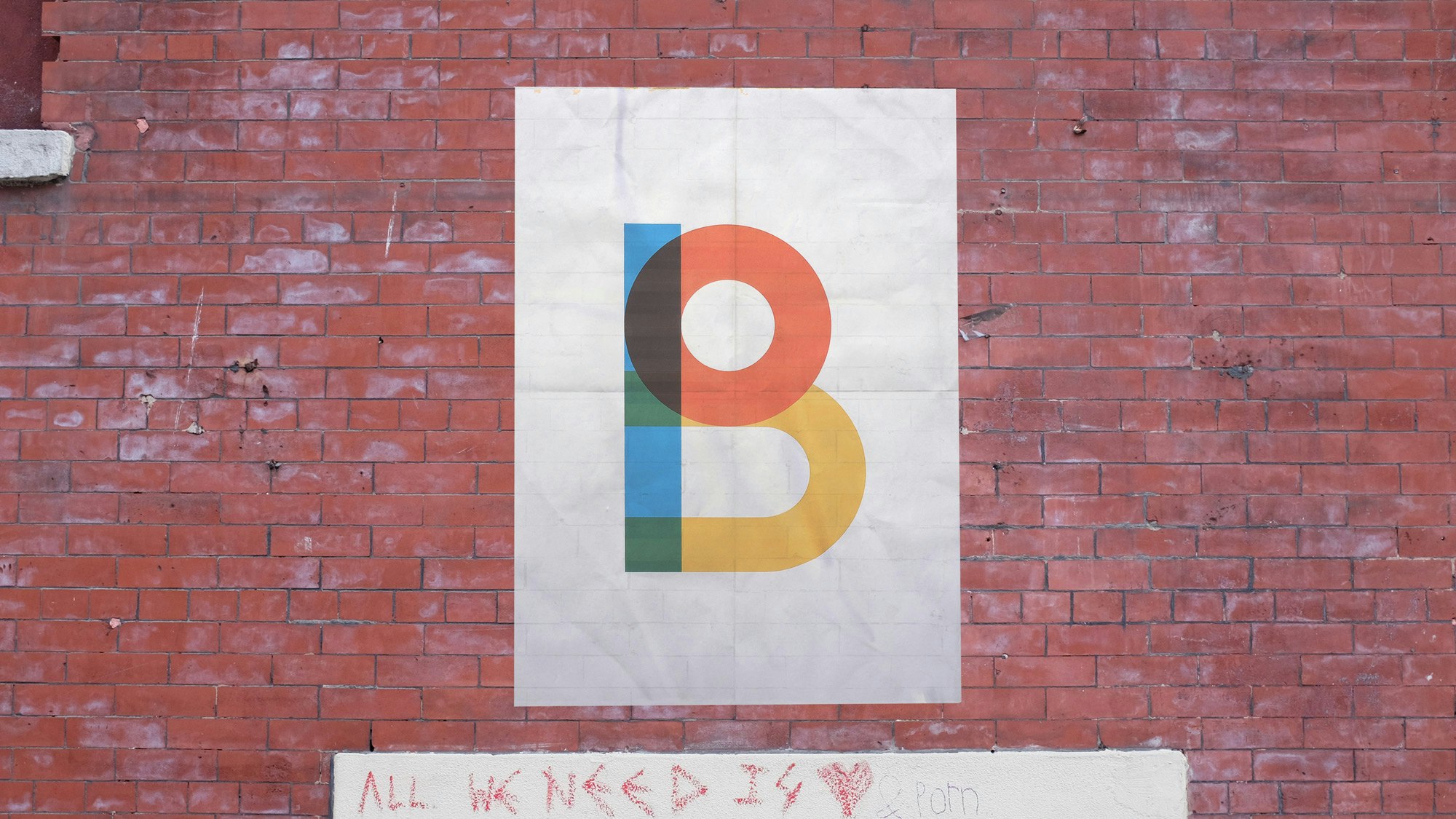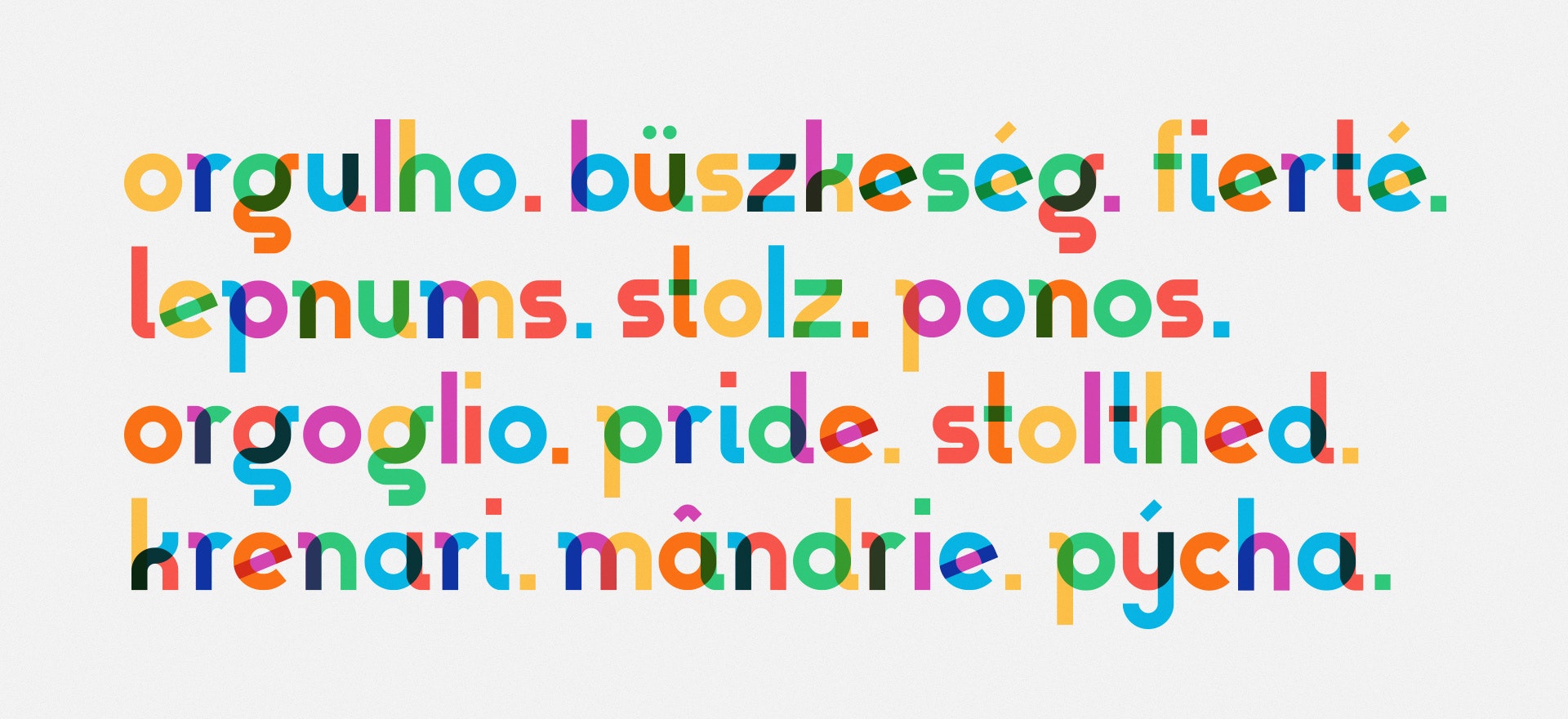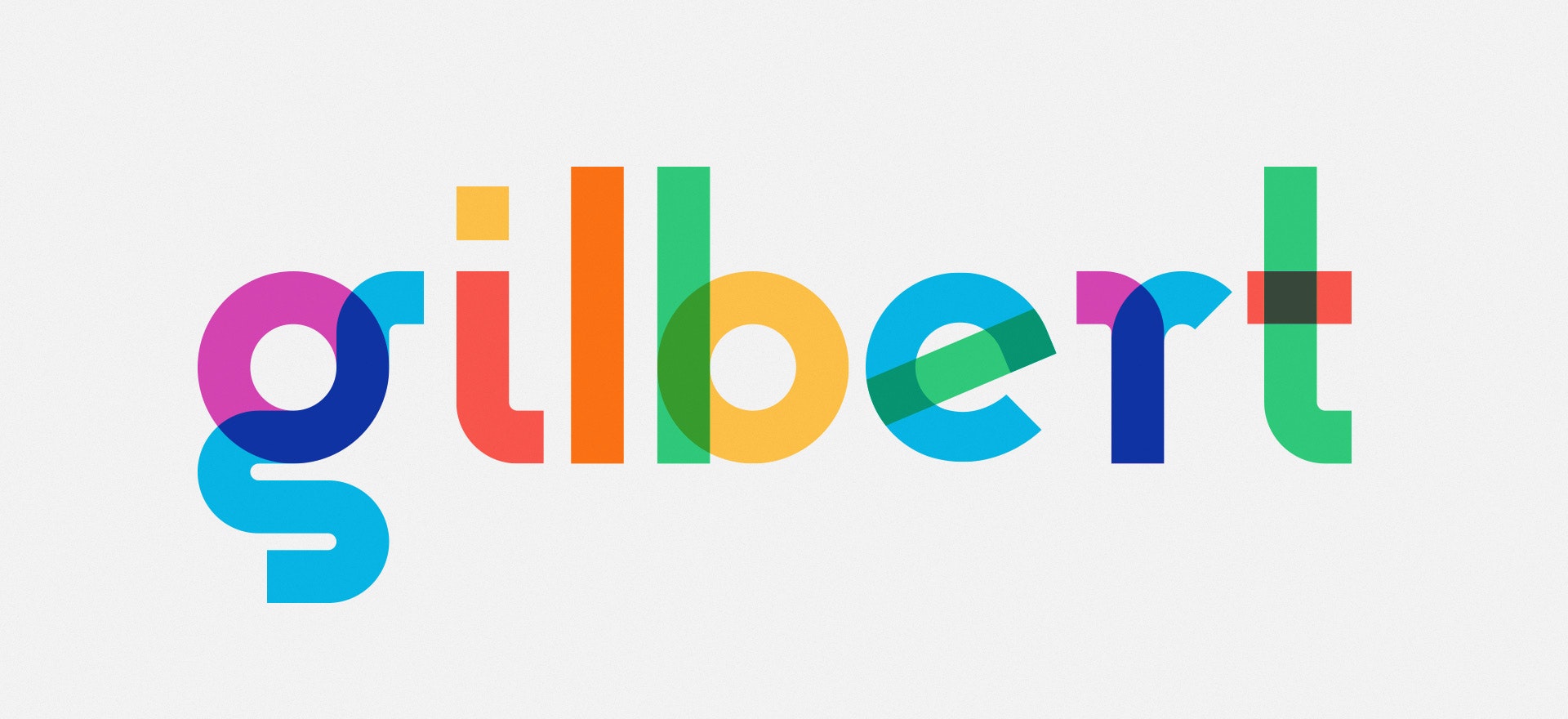
Gilbert font
A Creative Commun font based on the Rainbow flag
I'd use this font regardless of the great message behind it. Awesome design.
Beautiful design with a great meaning. <3